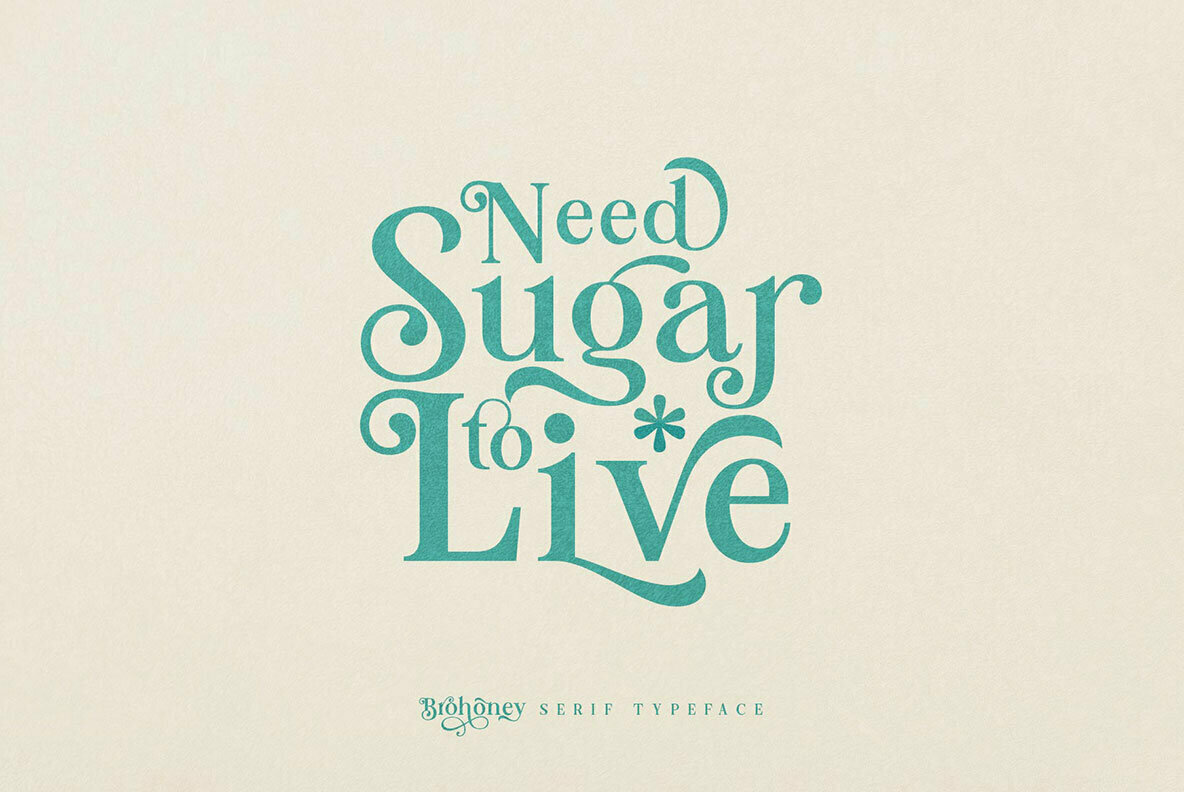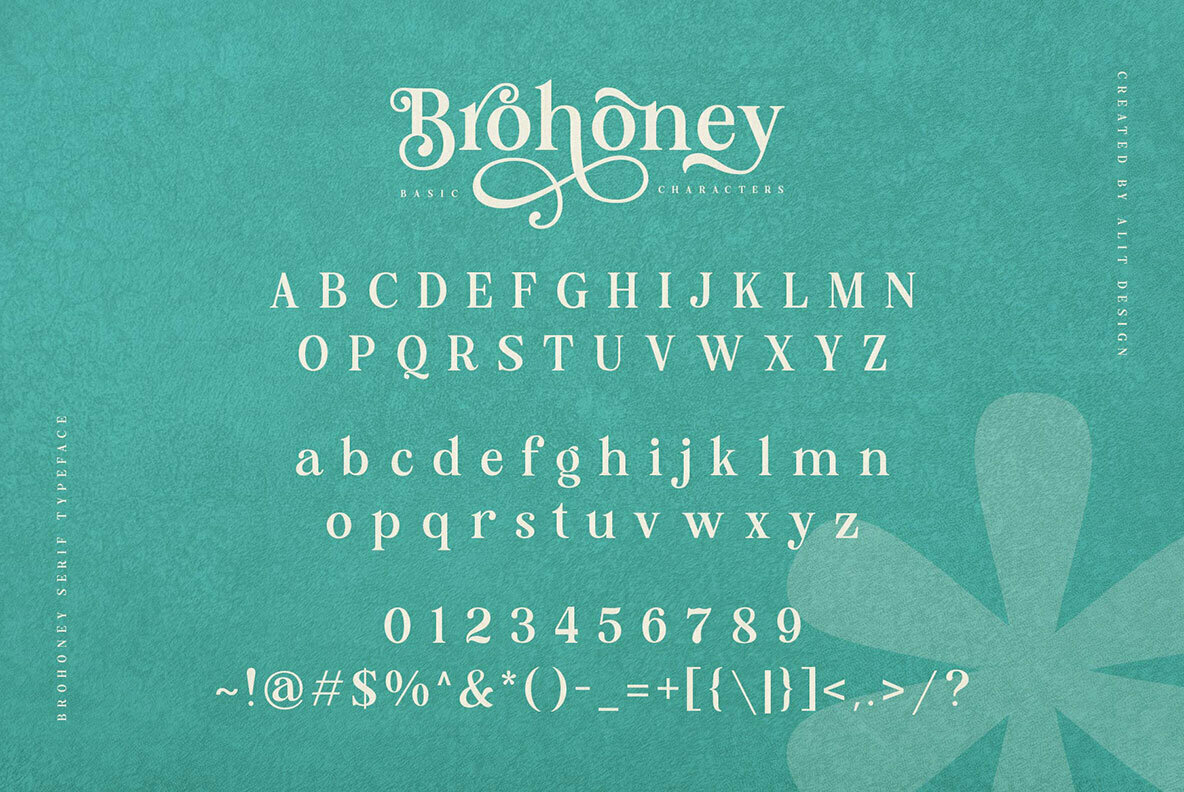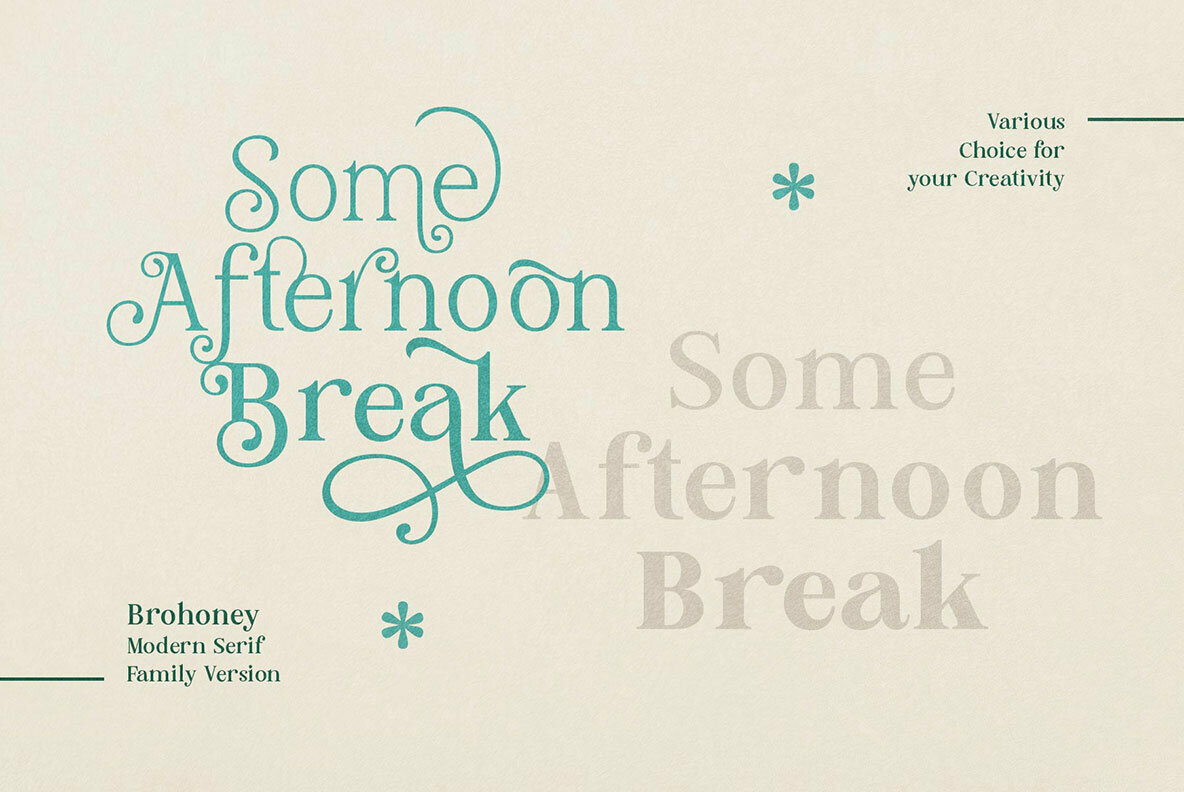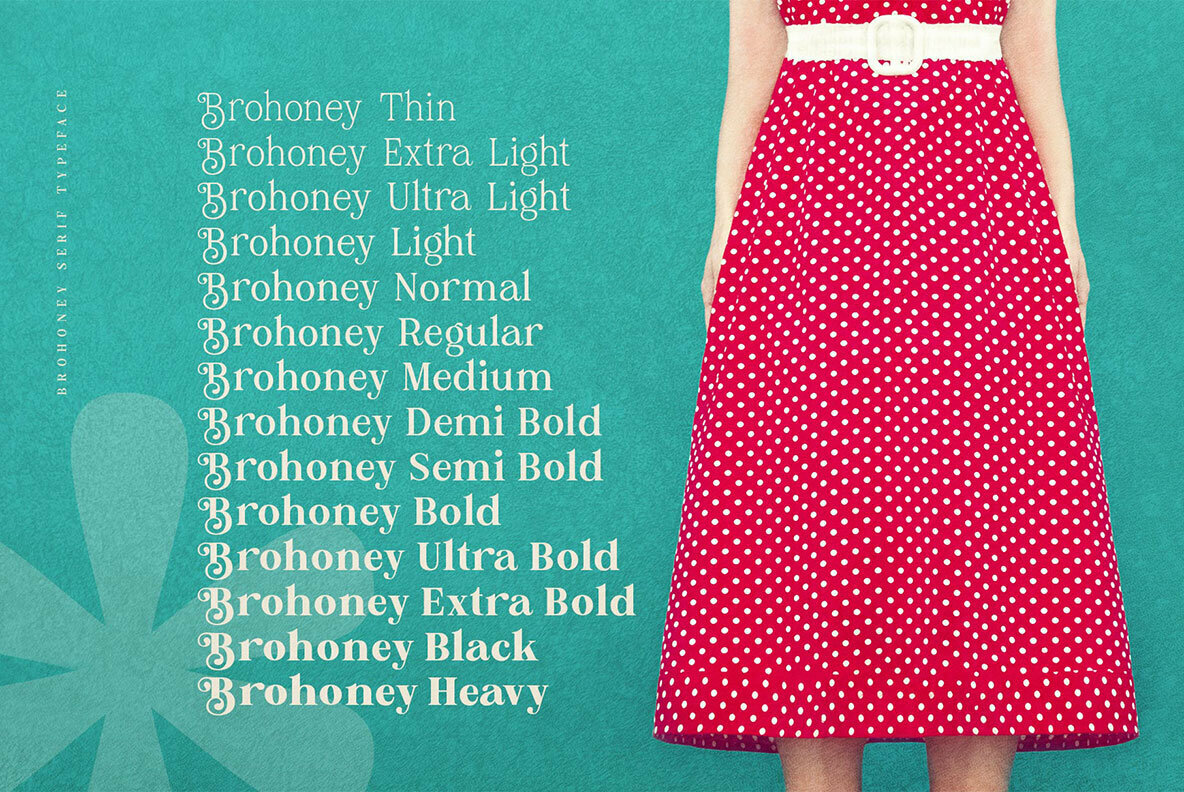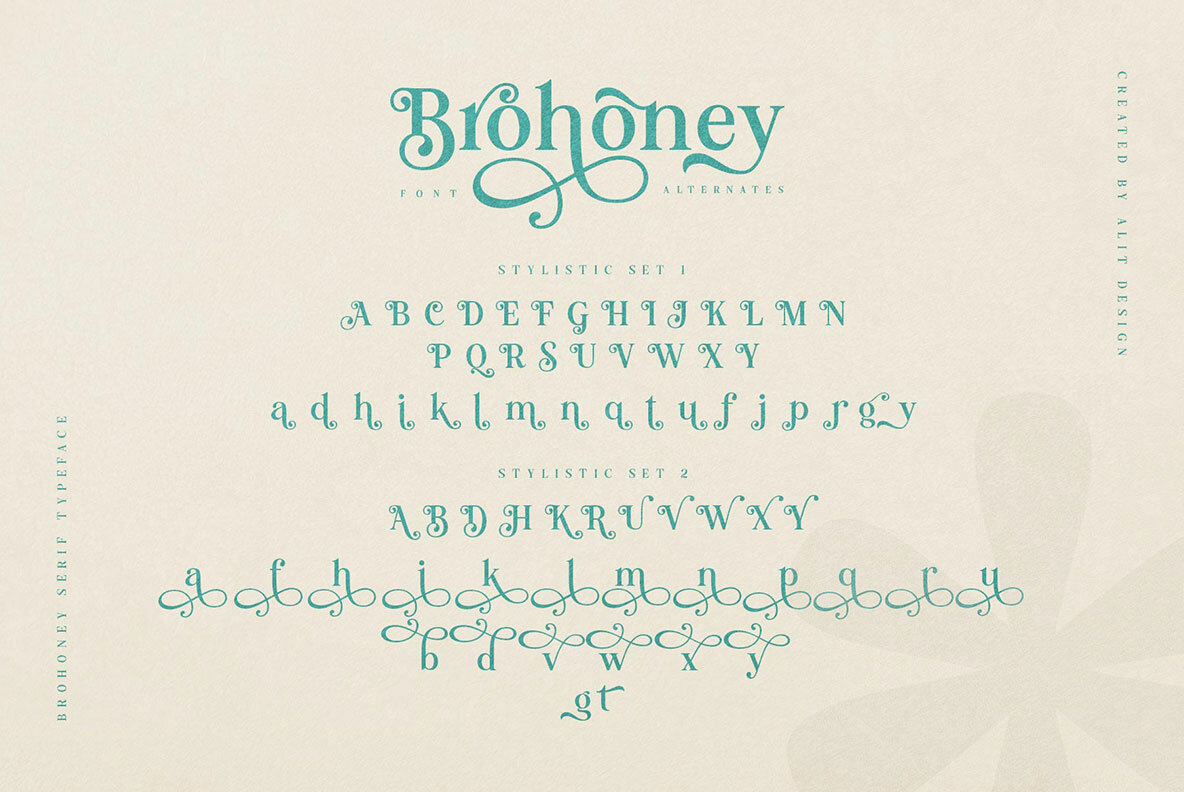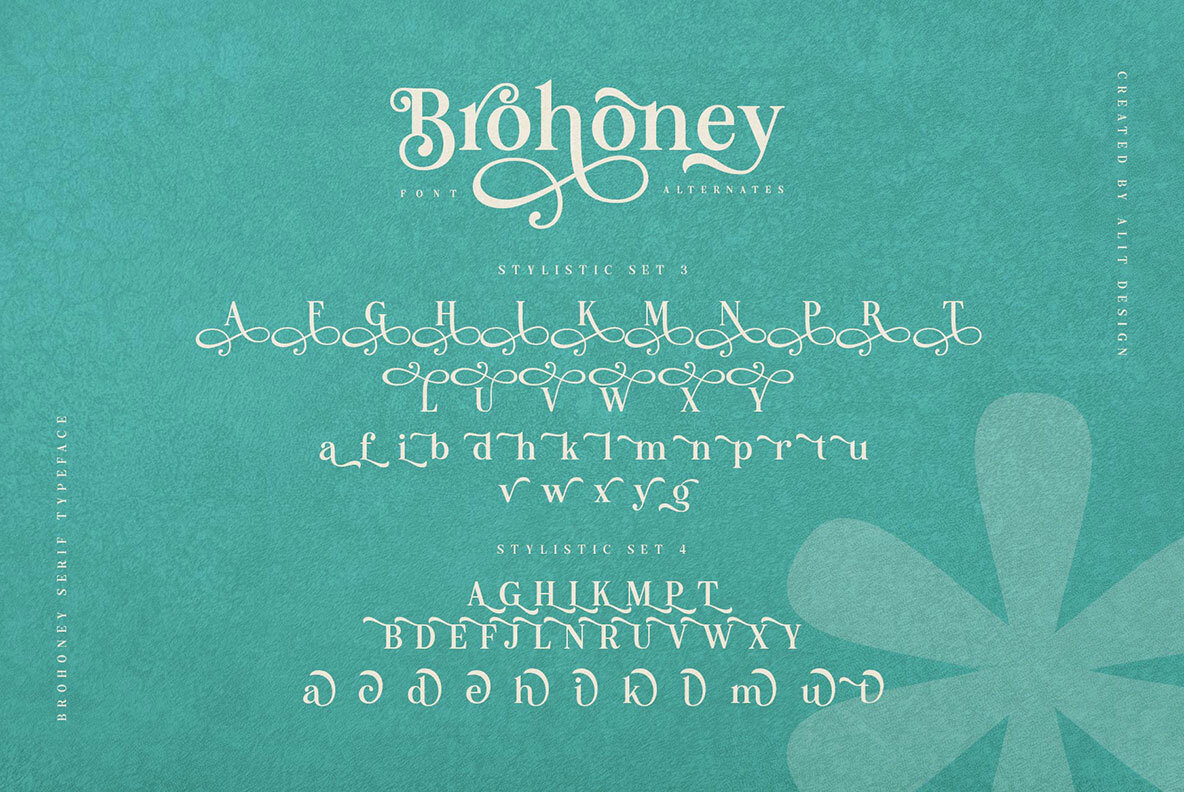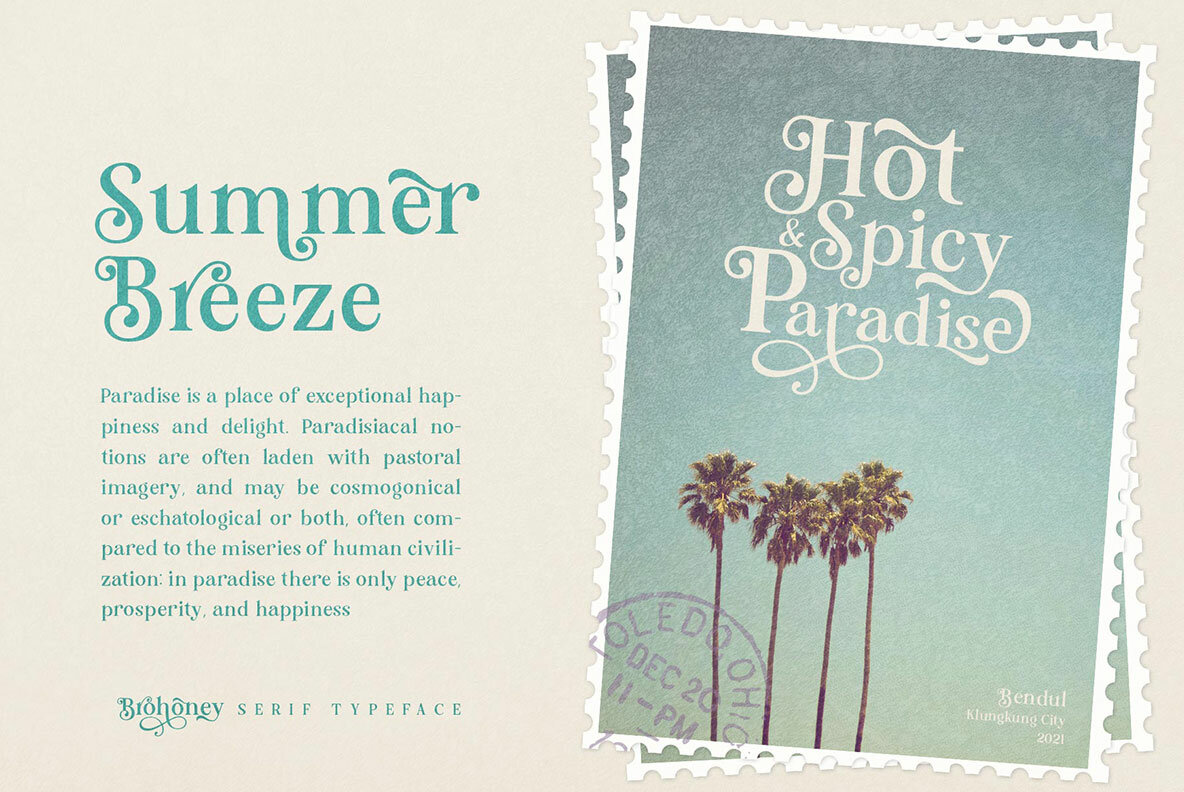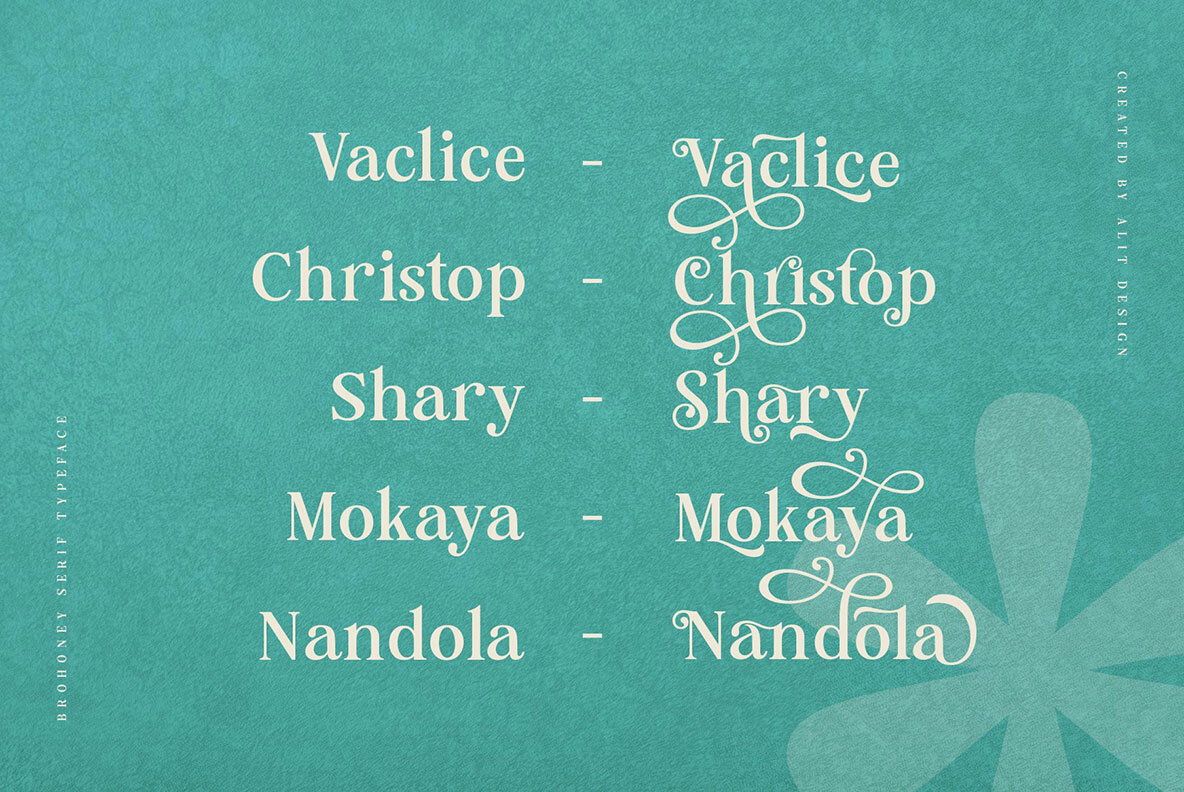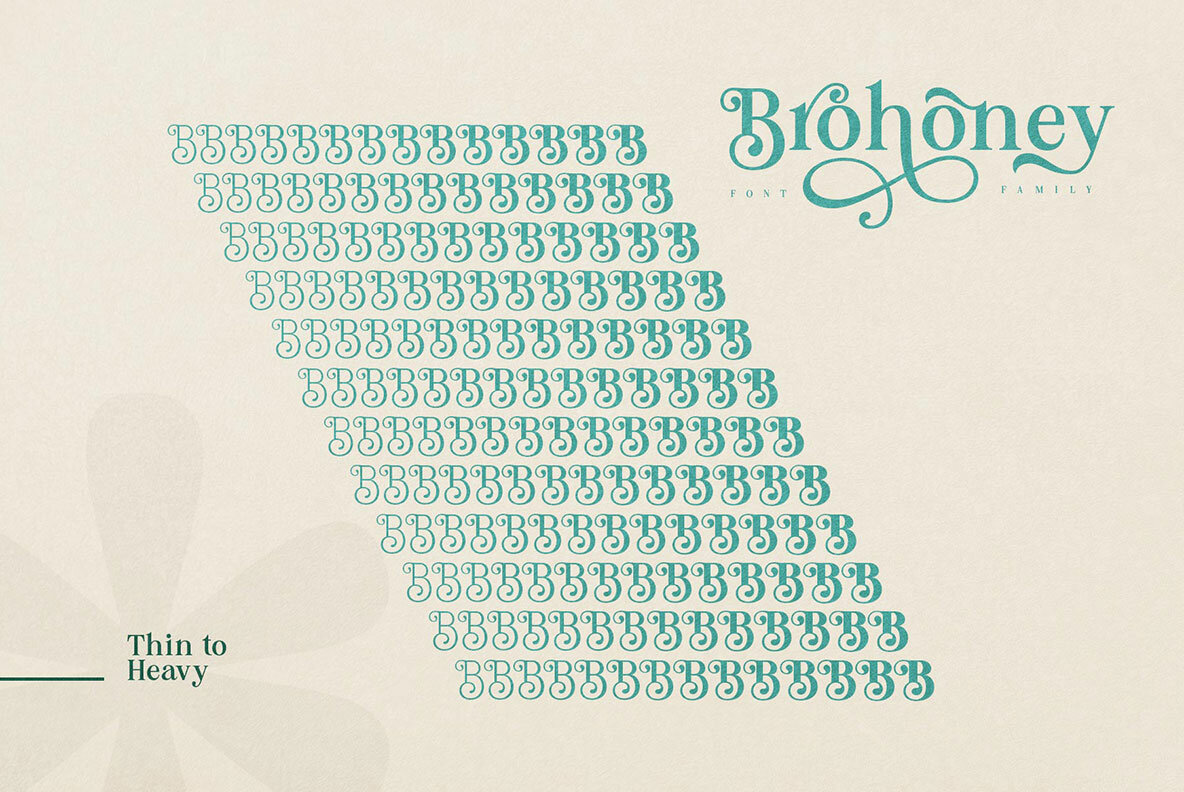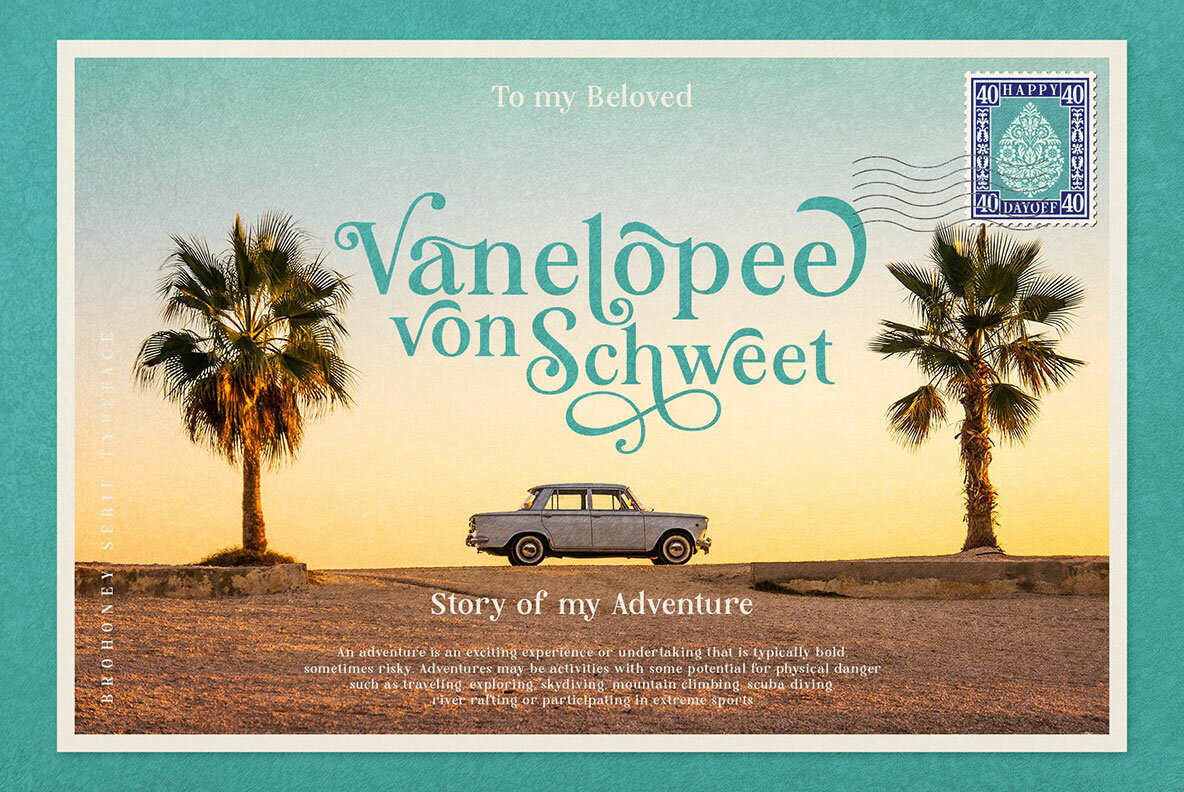
Brohoney Font
Brohoney is more than just an elegant typeface; it embodies the graceful combination of swash and limp curves that set any creative project apart. Its versatile character makes it an ideal choice for both high-end and straightforward design concepts. Designed to stand out, Brohoney offers myriad stylistic alternatives through opentype glyphs, giving designers the freedom to customize their vision with ease.Brohoney: Elegant Serif with Swash and Curves